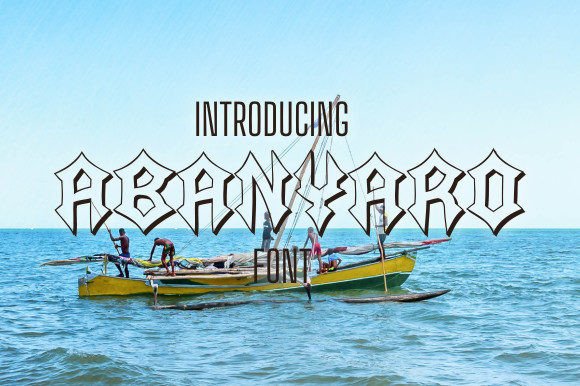
The Abanyaro Font: A Bold and Beautiful Blackletter Addition to Your Design Arsenal
I’ll never forget the design project that led me to discover the Abanyaro font. I was working on a Gothic-inspired branding campaign for a client who wanted a bold, eye-catching look. As I scoured the internet for the perfect font, I stumbled upon Abanyaro – a stunning blackletter font that instantly caught my attention. Its thick, bold letters and elegant swashes made it the perfect fit for my project. In this article, I’ll share my experience with Abanyaro, its features, and how to make the most of it in your designs.
Abanyaro Font: The Review
- ✨ Bold and Thick Lettering: Abanyaro’s blackletter design is perfect for making a statement in your projects. Its bold and thick letters are sure to grab attention.
- 💥 Elegant Swashes: Abanyaro comes with beautiful swashes that can add a touch of elegance to your designs.
While Abanyaro is an excellent font, there are a few things to keep in mind:
- 🤔 Legibility at Small Sizes: Like many blackletter fonts, Abanyaro can be challenging to read at small sizes. Make sure to use it at larger sizes or for headlines and titles.
- ⚠️ Limited Use Cases: While Abanyaro is incredibly versatile, it’s not suitable for body text or long-form content. Use it for headlines, titles, or emphasis.
Abanyaro was designed with the goal of creating a bold and elegant blackletter font that would add a touch of sophistication to any design project. The designer drew inspiration from traditional Gothic architecture and calligraphy, combining bold lines and elegant swashes to create a truly unique font.
Q: What is the Abanyaro font?
A: Abanyaro is a bold and thick lettered blackletter font designed for use in a variety of design projects.